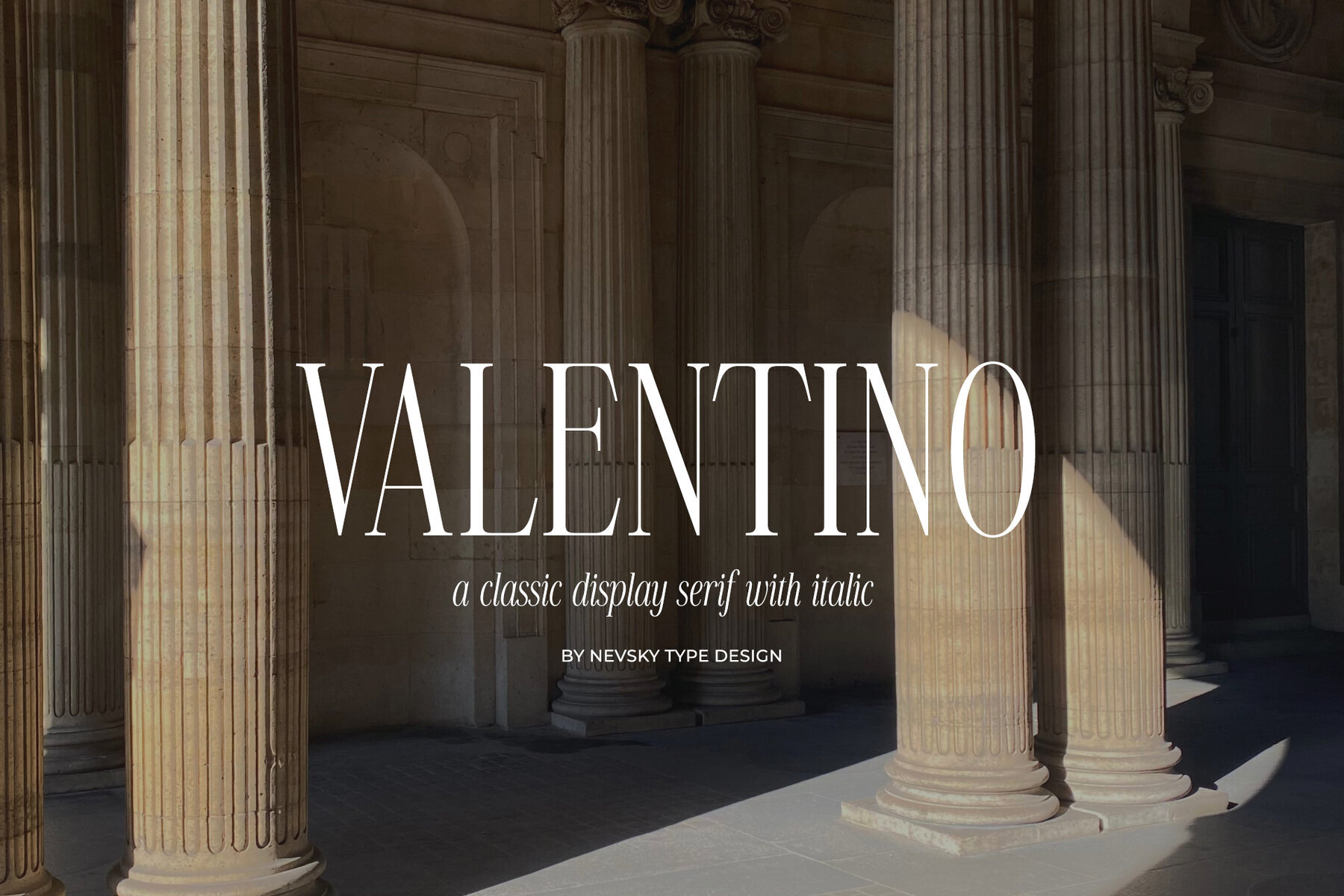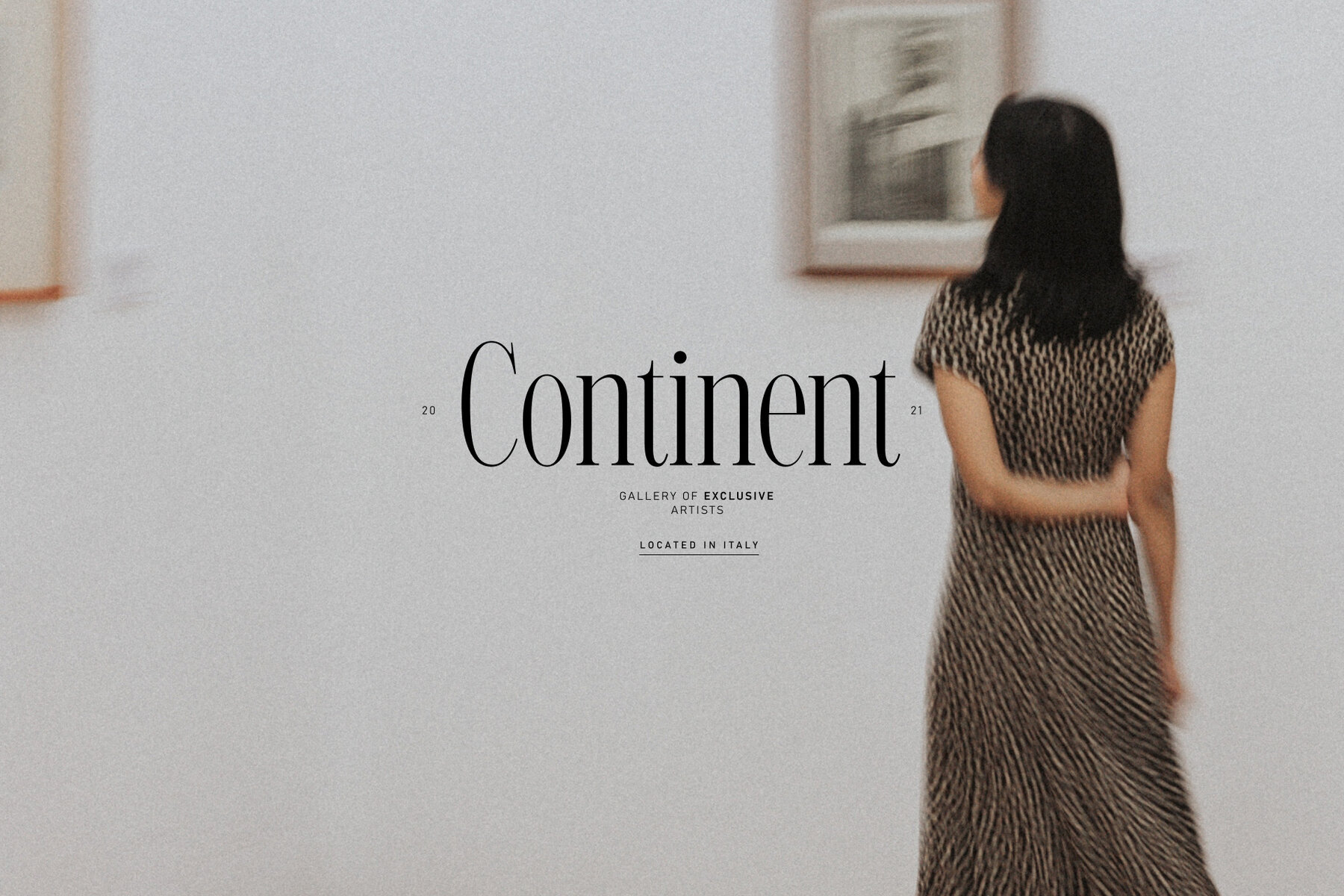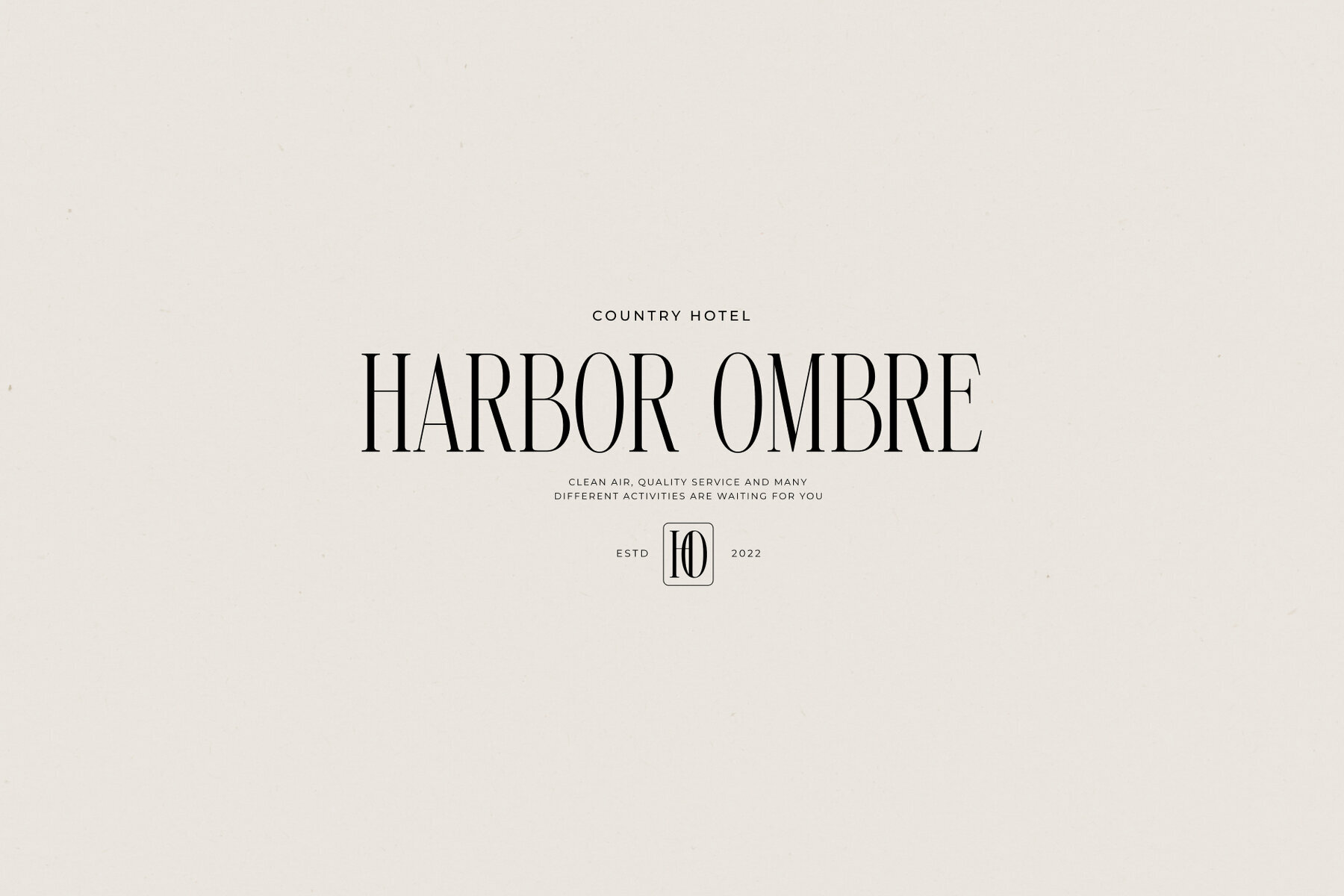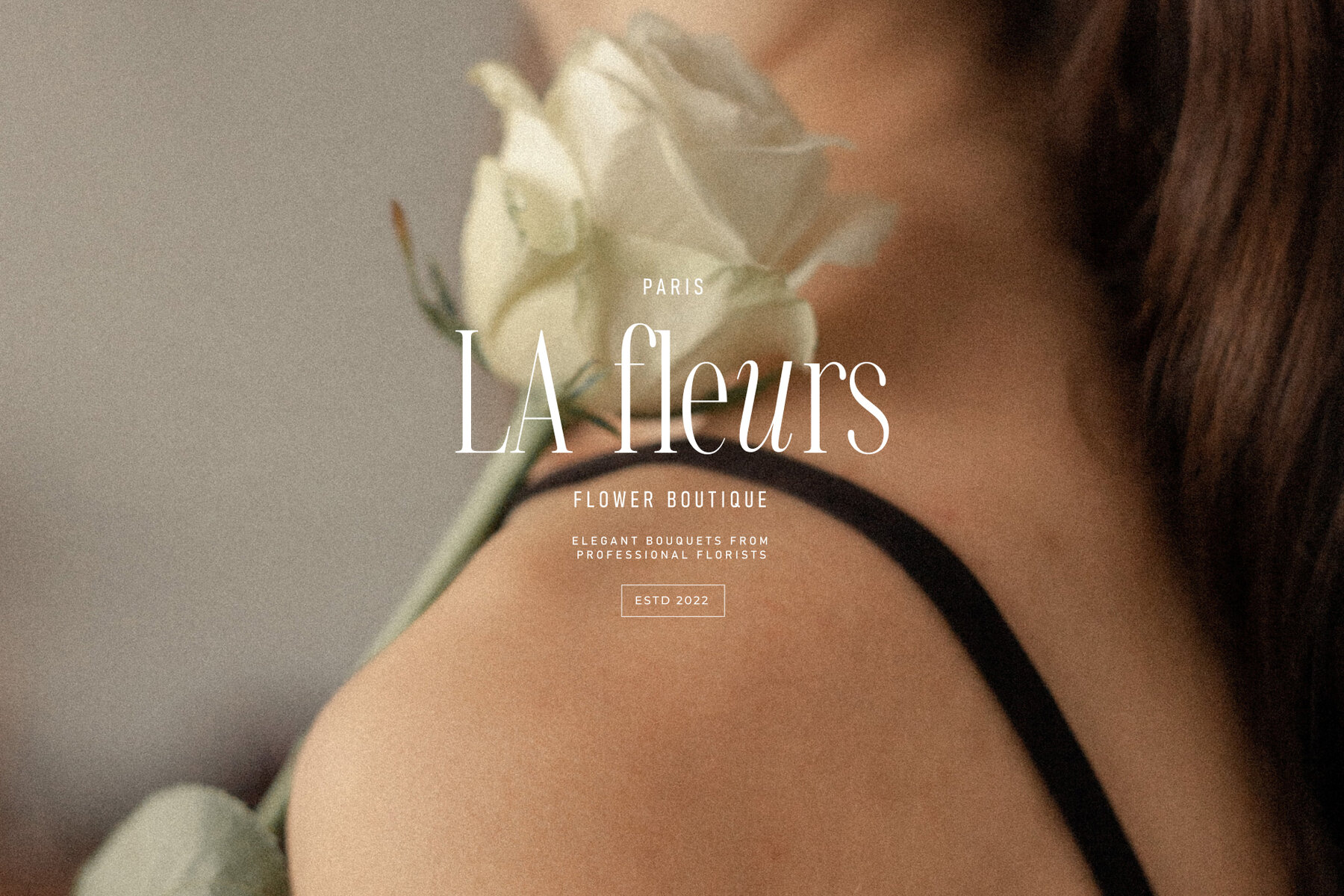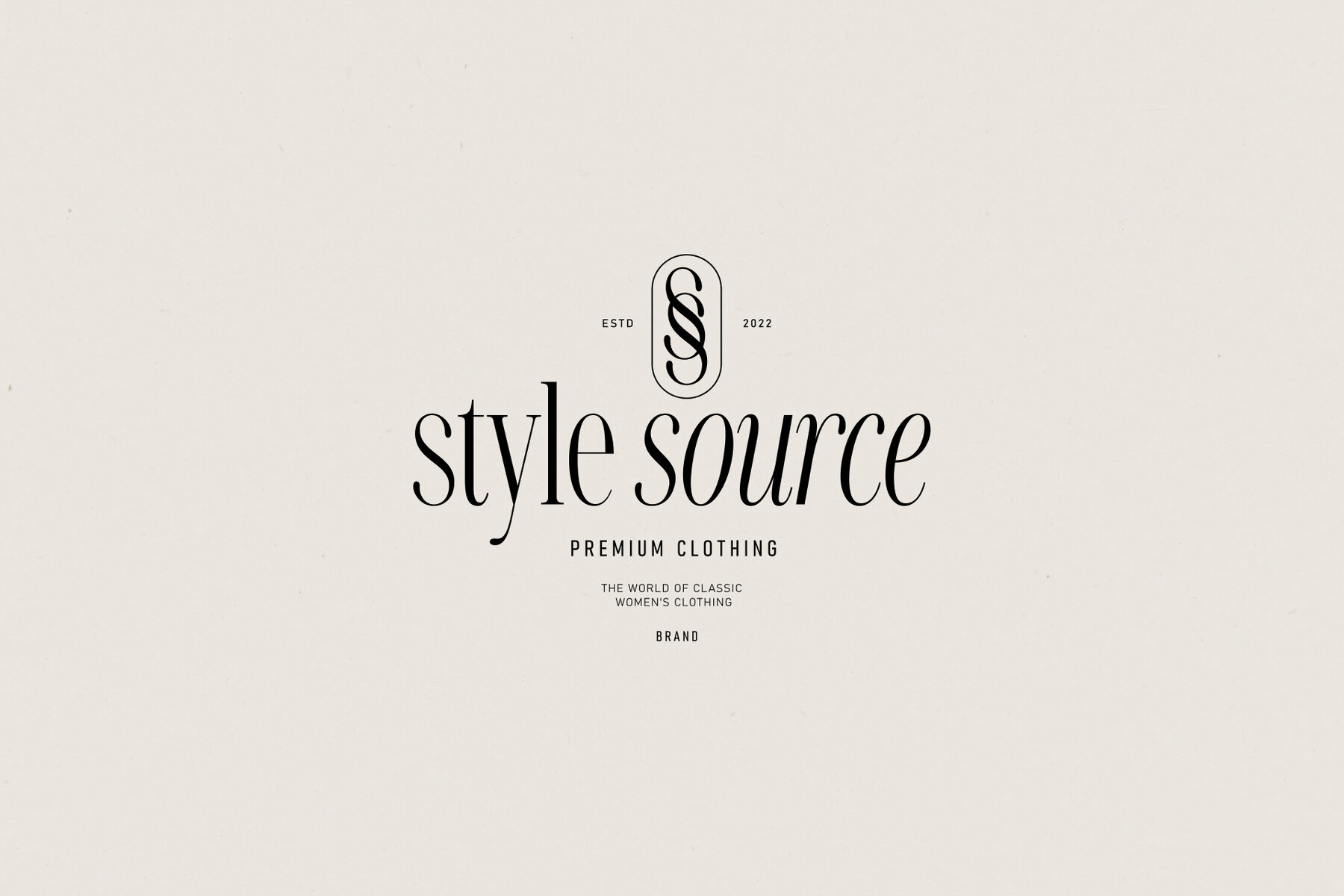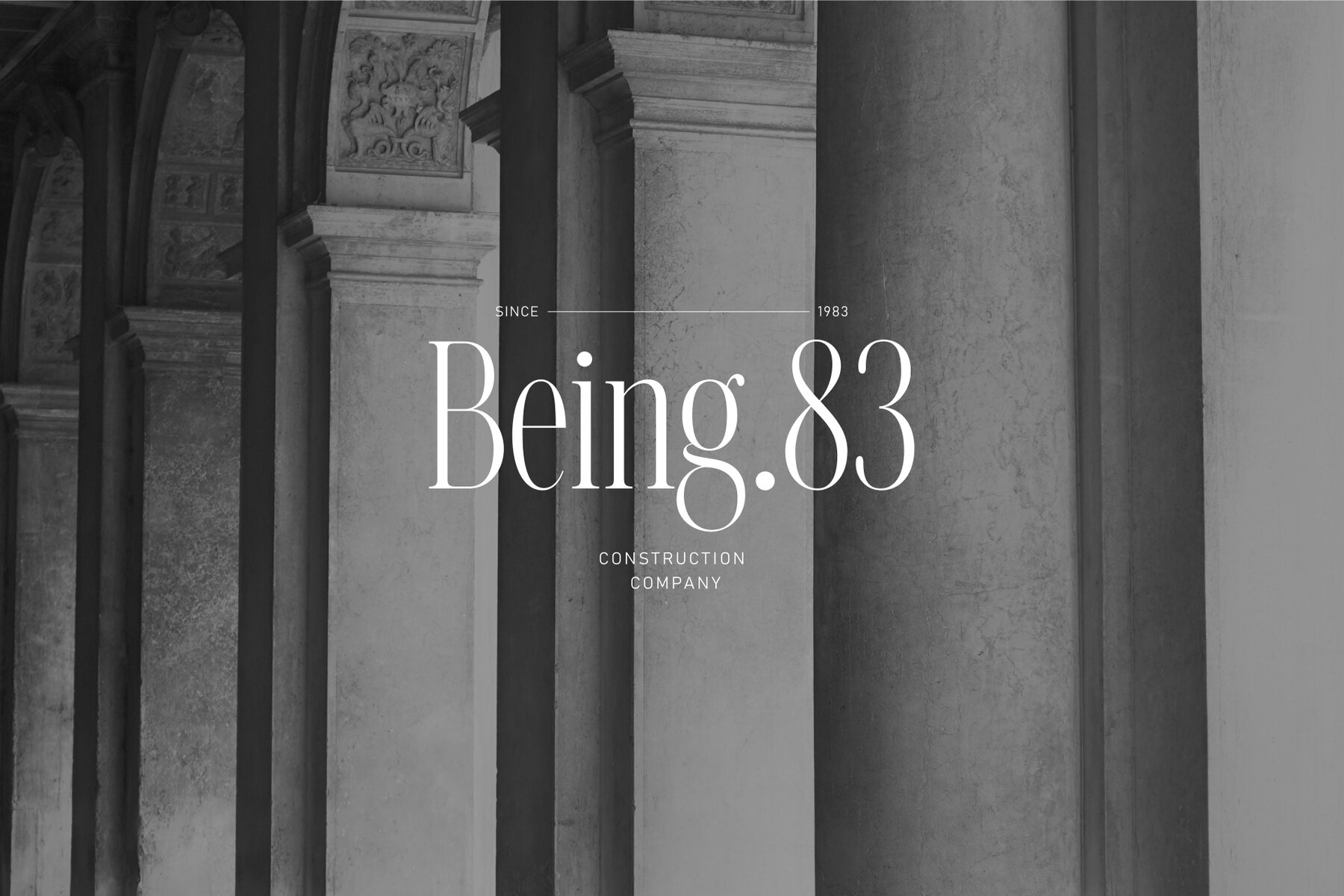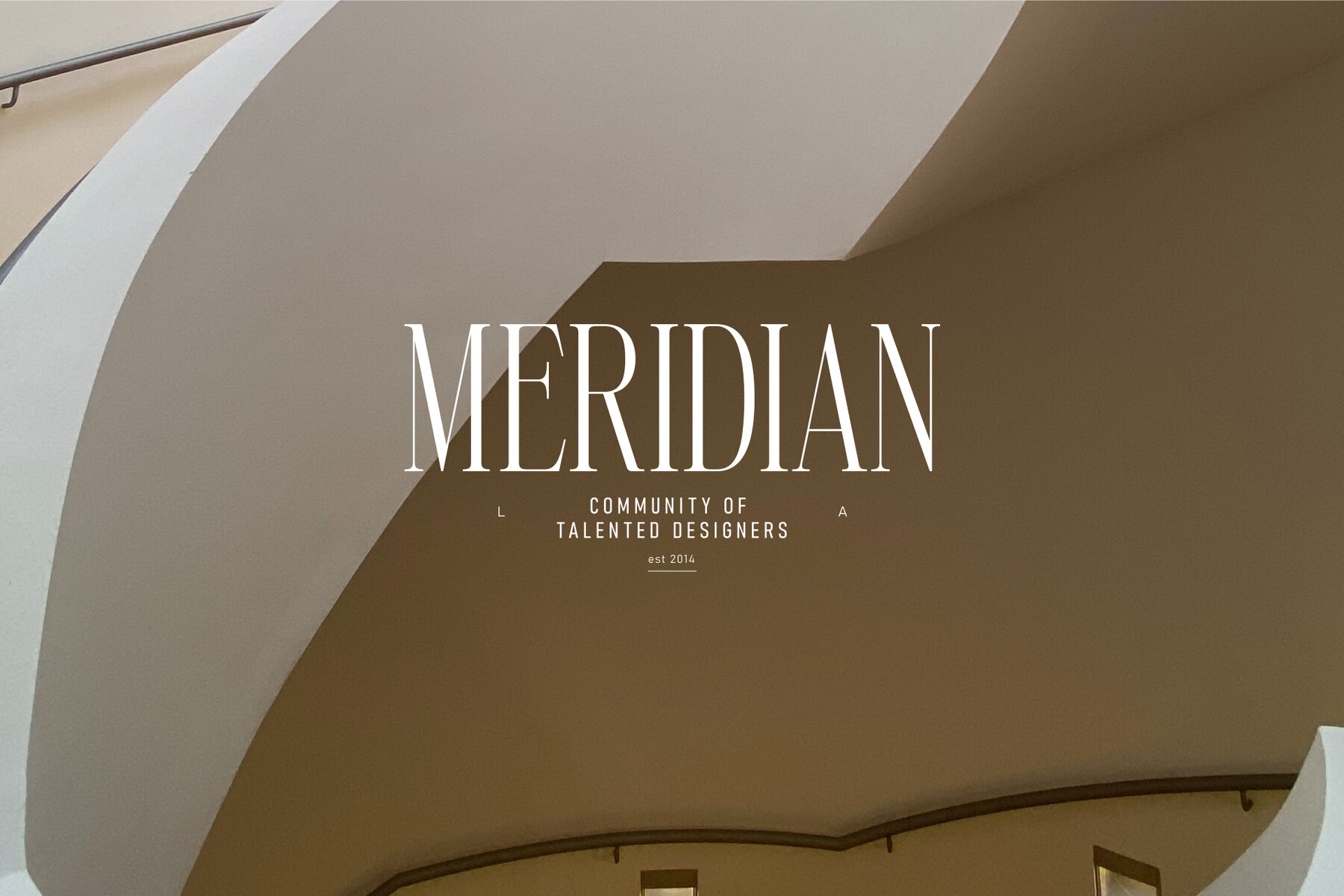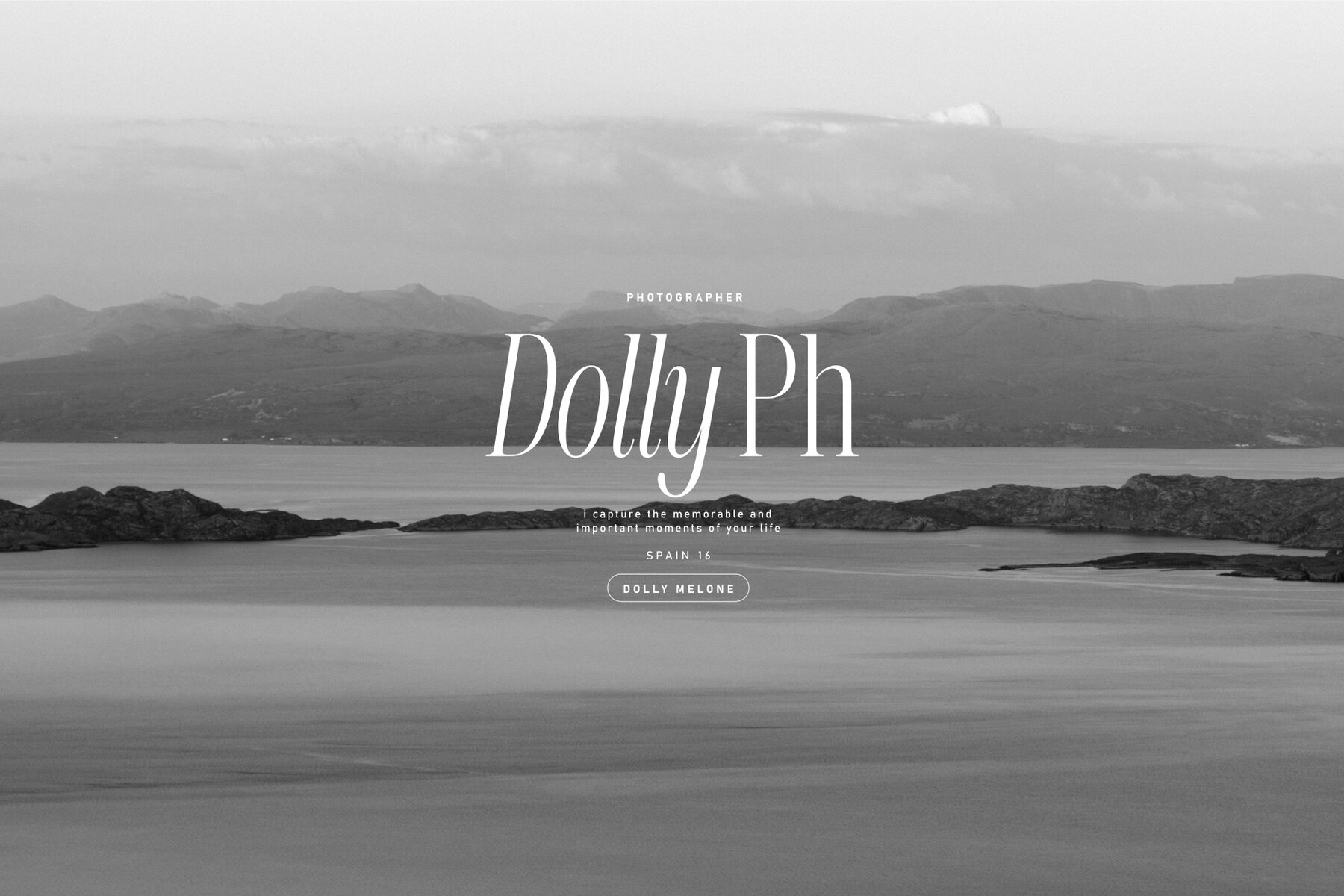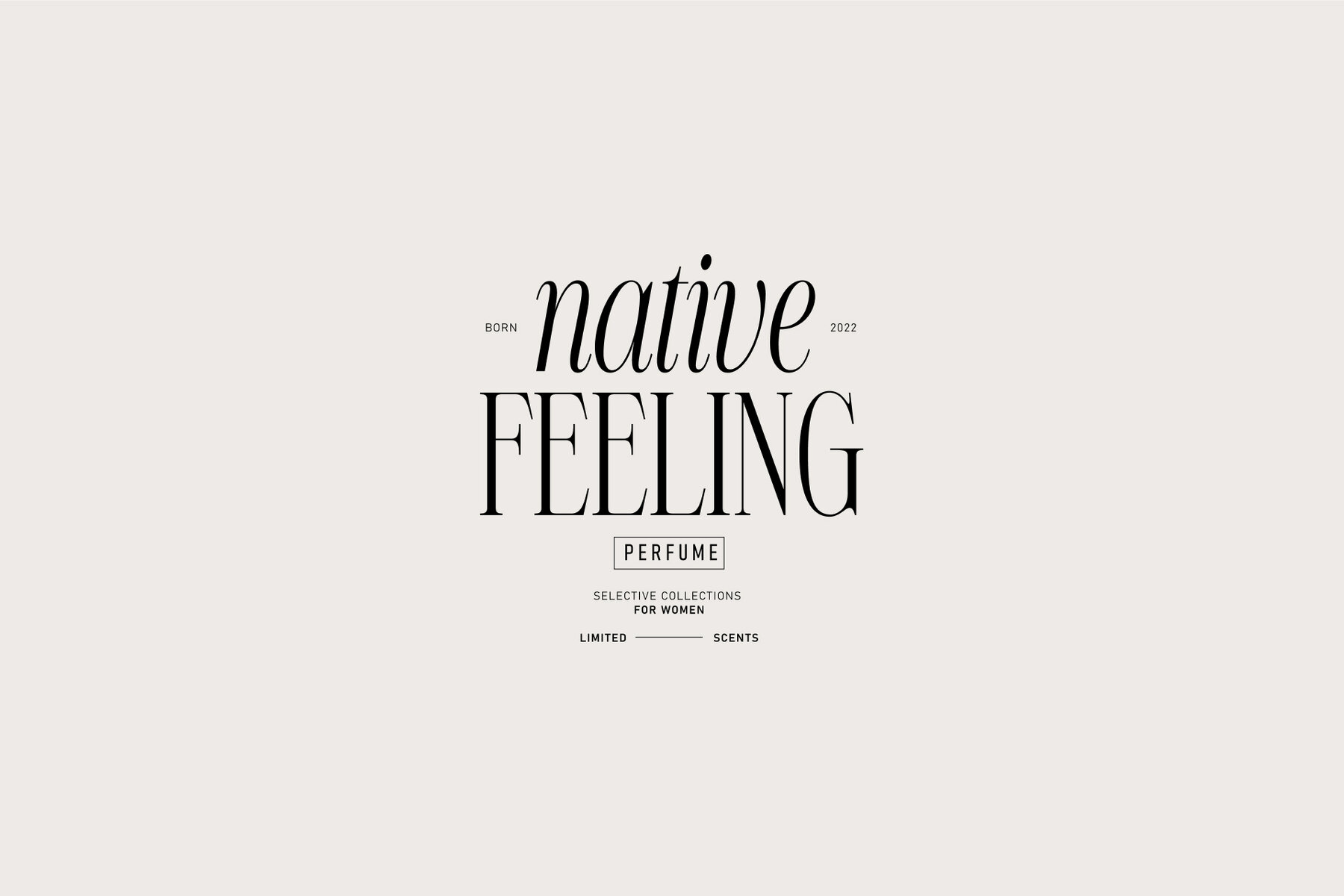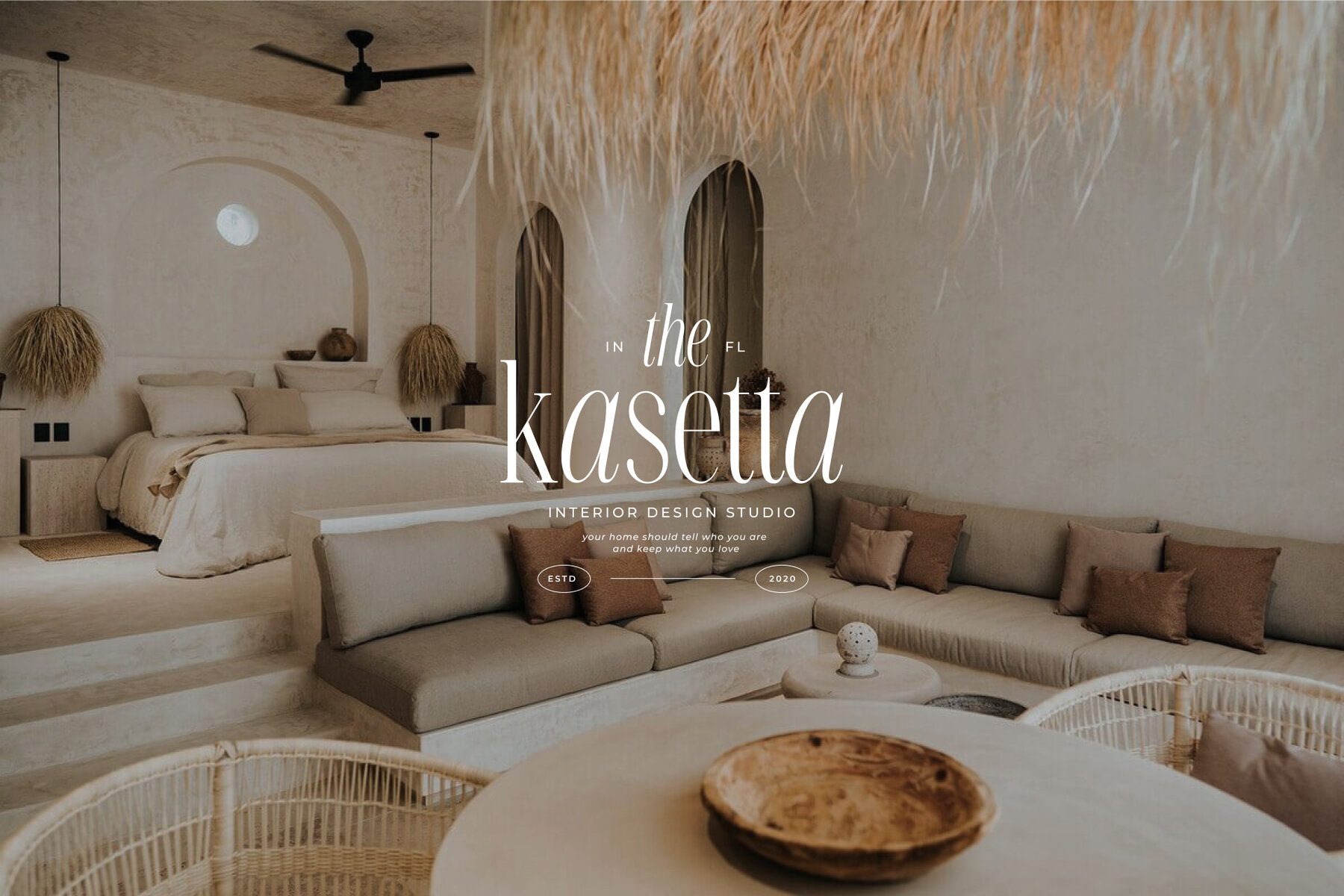
NT Valentino Font
NT Valentino is a sophisticated serif font designed by nevsky.type, crafted to cater to diverse language needs.NT Valentino: A Multilingual Serif Font